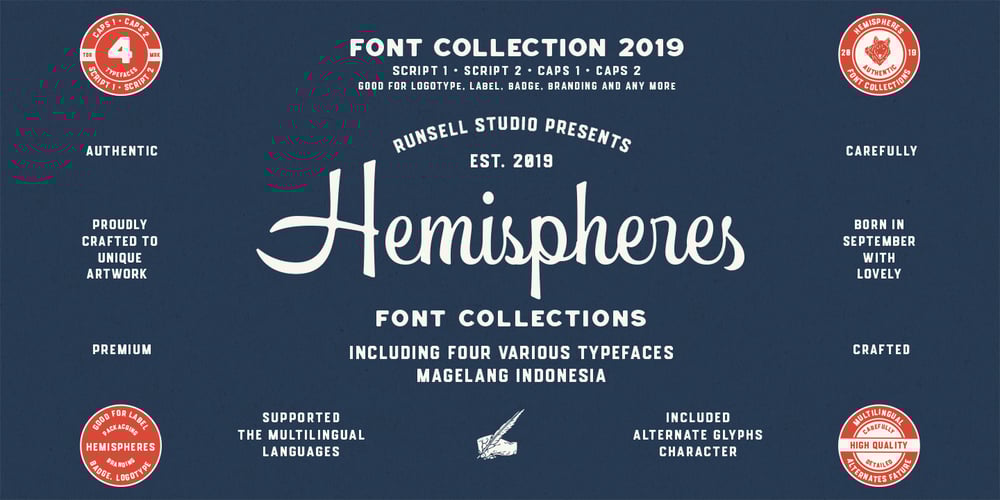
Hemispheres Font Family was designed by Fitriyawan and published by Runsell Type. Hemispheres contains 4 styles and family package options. Hemispheres perfectly represents clean and classy design in four weights: Script 1, Script 2, Caps 1, and Caps 2. The project was inspired by unique labels, badges, and packaging and works well for additional cases such as logotype, branding, packaging, quotes, business cards and more. Hemispheres feature uppercase, lowercase, numeral, punctuation & symbol, ligatures, stylistic alternates, multilingual support, PUA encoded. How to get access alternate glyphs from open type fonts check this link : http://adobe.ly/1m1fn4Y